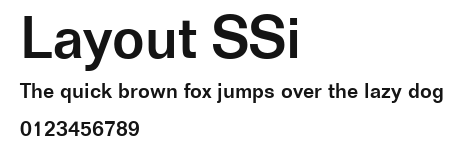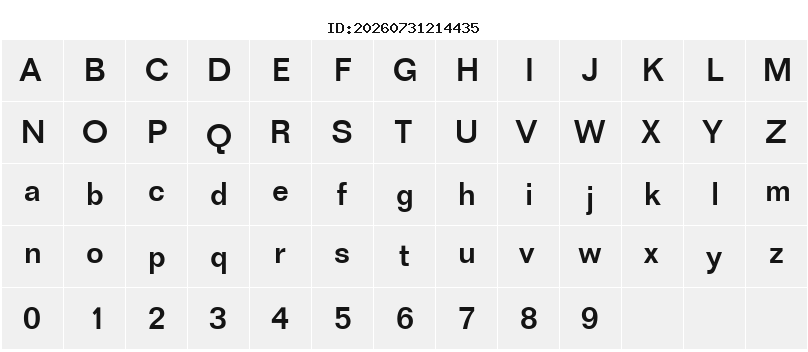
About Layout SSi.ttf
Layout SSi.ttf is a modern, elegant sans-serif font designed for ultimate readability and visual harmony. Perfect for branding, headlines, web design, and print materials.